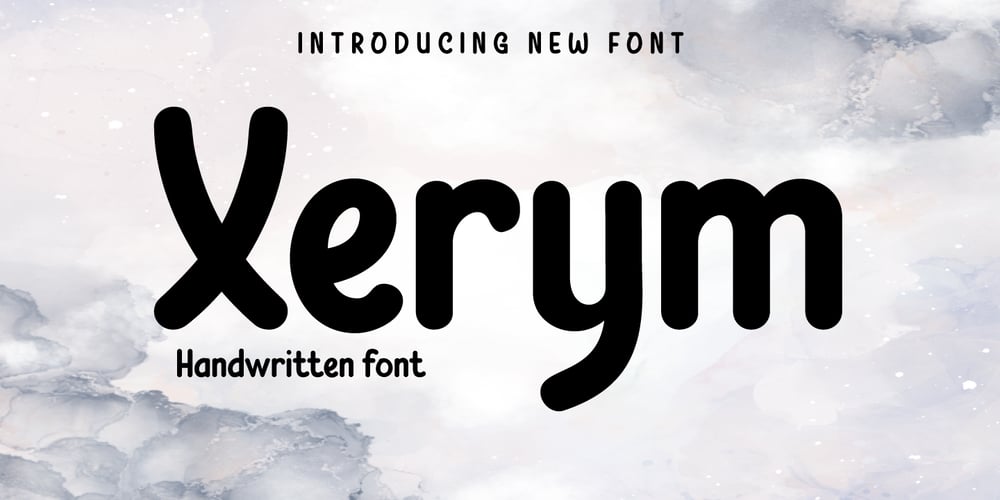
Xerym
Xerym font
Xerym Font Family was designed by Rozikan and published by Twinletter. Xerym contains 1 styles and family package options. Introducing Xerym Font – a captivating display typeface that embodies the essence of authentic handwriting! Elevate your projects with the artistic touch of Xerym, a perfect blend of style and individuality. Explore Xerym now and witness your creations come to life!What’s Included : File font All glyphs Iso Latin 1 Alternate, Ligature Simple installations PUA Encoded Characters – Fully accessible without additional design software. Fonts include Multilingual support